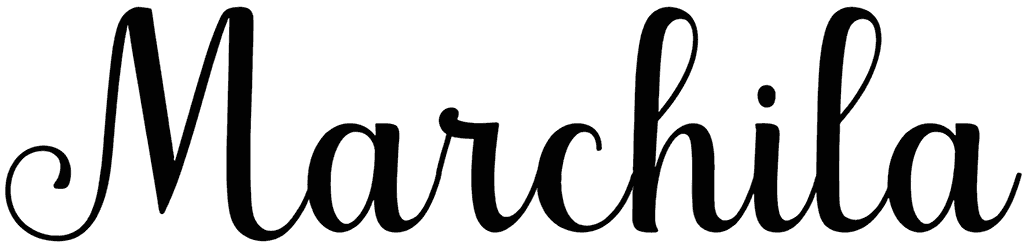
Marchila Font
Marchila is a clean and modern handwritten font that has the order and calm appearance of digital fonts, and there is no human fuss in it. This calligraphy font provides an innovative program for creative professional designers who can put letters together in an eye-catching arrangement.
Simple twists in this romantic font can create a subtle aesthetic in logos, letterhead, poetry books, and love letters, and show off your professional art.